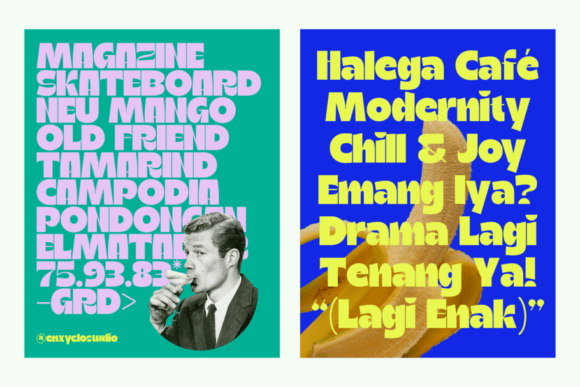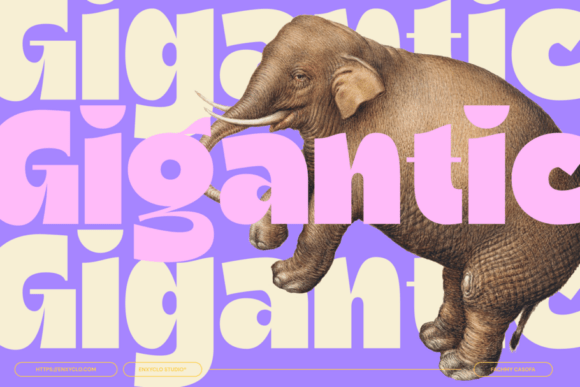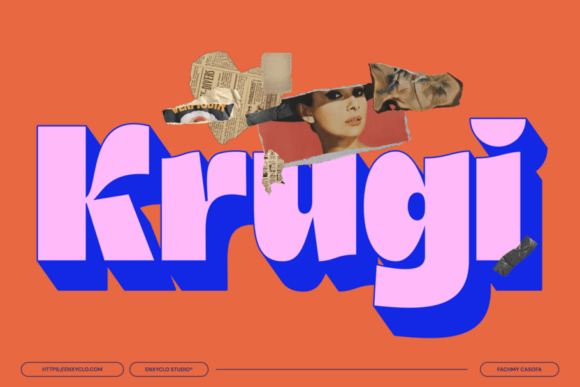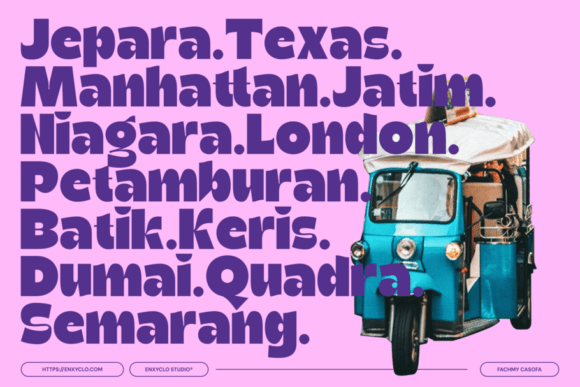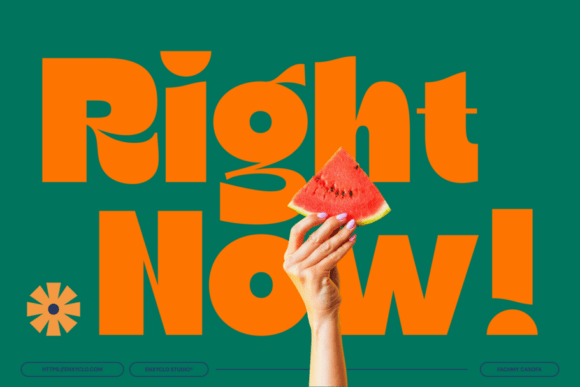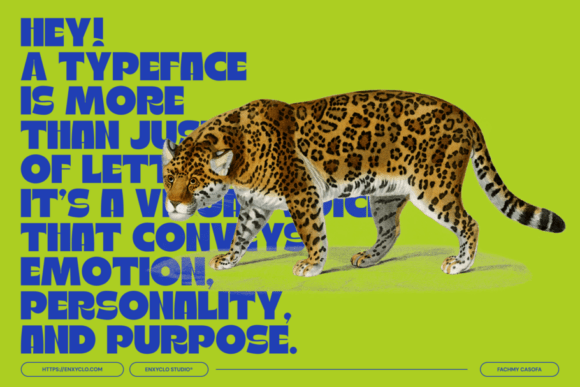
Introduction to Ragikon Font
As a designer, there’s nothing quite like the thrill of seeing your creative project come to life. It’s the moment when all the elements fall into place, and you’re left with a sense of pride and accomplishment. For many of us, that moment is made all the more special when we get to use a font that truly captures the essence of our design. And that’s exactly what the Ragikon Font does – it’s a high-quality design resource that’s sure to elevate any project.
With its bold, playful letterforms and transparent background, the Ragikon Font is the perfect choice for designers looking to add a touch of summer charm to their work. Whether you’re creating a dynamic poster, a cheerful brand, or innovative packaging, this font is sure to command attention and leave a lasting impression. And the best part? It’s available for free download, making it an invaluable resource for designers of all levels.
But what really sets the Ragikon Font apart is its versatility. From daring headers to display applications, this font is designed to be used in a variety of creative ways, making it a valuable addition to any designer’s toolkit.
Key Features of Ragikon Font
- High-quality design with a transparent background, making it ideal for creative projects and designs.
- Ragikon Font is designed to be scalable, maintaining its quality and clarity at resolutions up to 300 DPI.
- Unique and creative design, making it perfect for artistic and innovative projects.
- Supports a wide range of languages, including Latin, Cyrillic, and Greek alphabets.
- Designed to be highly legible, with clear and distinct letterforms that are easy to read.
Honest Review: Ragikon Font
As a designer, I’m always on the lookout for unique and high-quality design resources to elevate my creative projects. The Ragikon Font is one such resource that caught my attention.
I was impressed by the Ragikon Font’s playful and whimsical style, making it perfect for projects that require a touch of personality. Its bold and vibrant lines add a level of sophistication that can elevate any design.
What works well with the Ragikon Font is its versatility. It’s available for free download, which is a definite plus, and can be easily customized to suit various design needs. The transparent background option is also a great feature, allowing for seamless integration with other design elements.
Here are some of the key features that I liked about the Ragikon Font:
- High-quality design with bold and vibrant lines
- Perfect for creative projects that require a touch of personality
- Transparent background option for seamless integration
- May not be suitable for projects that require a more minimalist design aesthetic
- Some users may find the font’s bold lines overwhelming
Overall, the Ragikon Font is a great addition to any designer’s toolkit. Its unique style and versatility make it a valuable resource for creative projects. While it may have some limitations, it’s definitely worth considering for your next design project.
Tips for Getting the Most Out of Ragikon Font
For the best results, use the Ragikon Font on a transparent background to create a seamless design.
Experiment with different font sizes and colors to add depth and visual interest to your project.
Common Use Cases for Ragikon Font
The Ragikon Font is perfect for a variety of creative projects, including:
Graphic design
Logo creation
Infographics
Can I modify the Ragikon Font or use it with a transparent background?
No, the Ragikon Font is a pre-designed font and should not be modified in any way. Additionally, the font does not have a transparent background, so it will not work well in designs that require a transparent or semi-transparent font. However, you can use the font in combination with other design elements to create a transparent or semi-transparent effect.